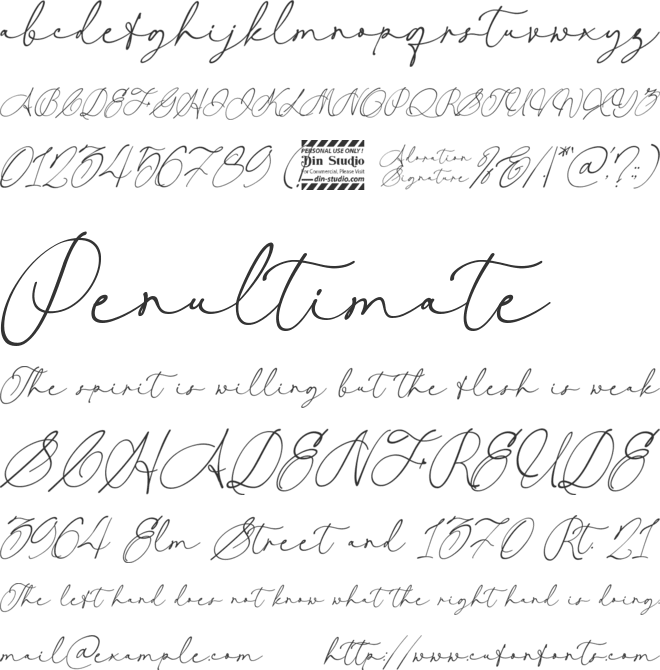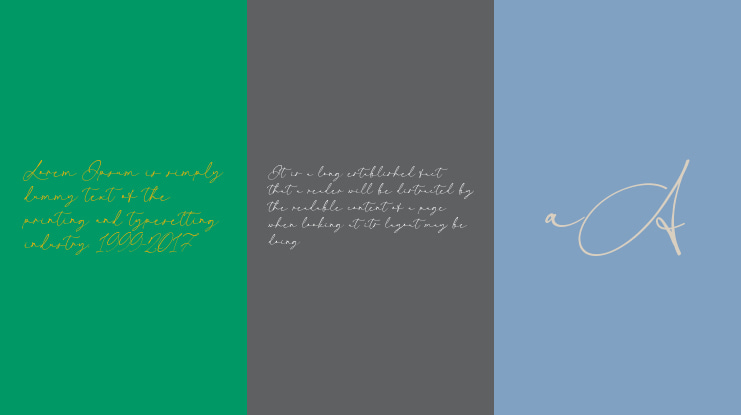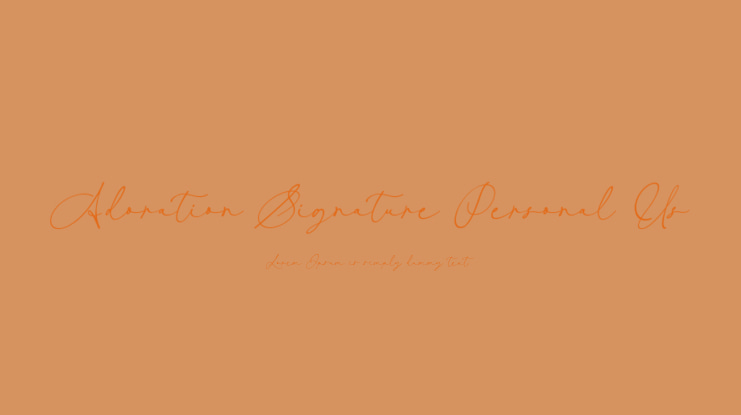
Product Description :
Adoration Signature is a captivating handwritten font that brings a personal touch to your designs. Made in thin weight, the letters are elegantly connected, creating a flowing and organic script. The inconsistent letter proportions add a charming and authentic feel, imbuing each word with character and individuality.
Features include:
• Ligatures
• Stylistic Sets
• Multilingual Supports
• Numerals and Punctuations